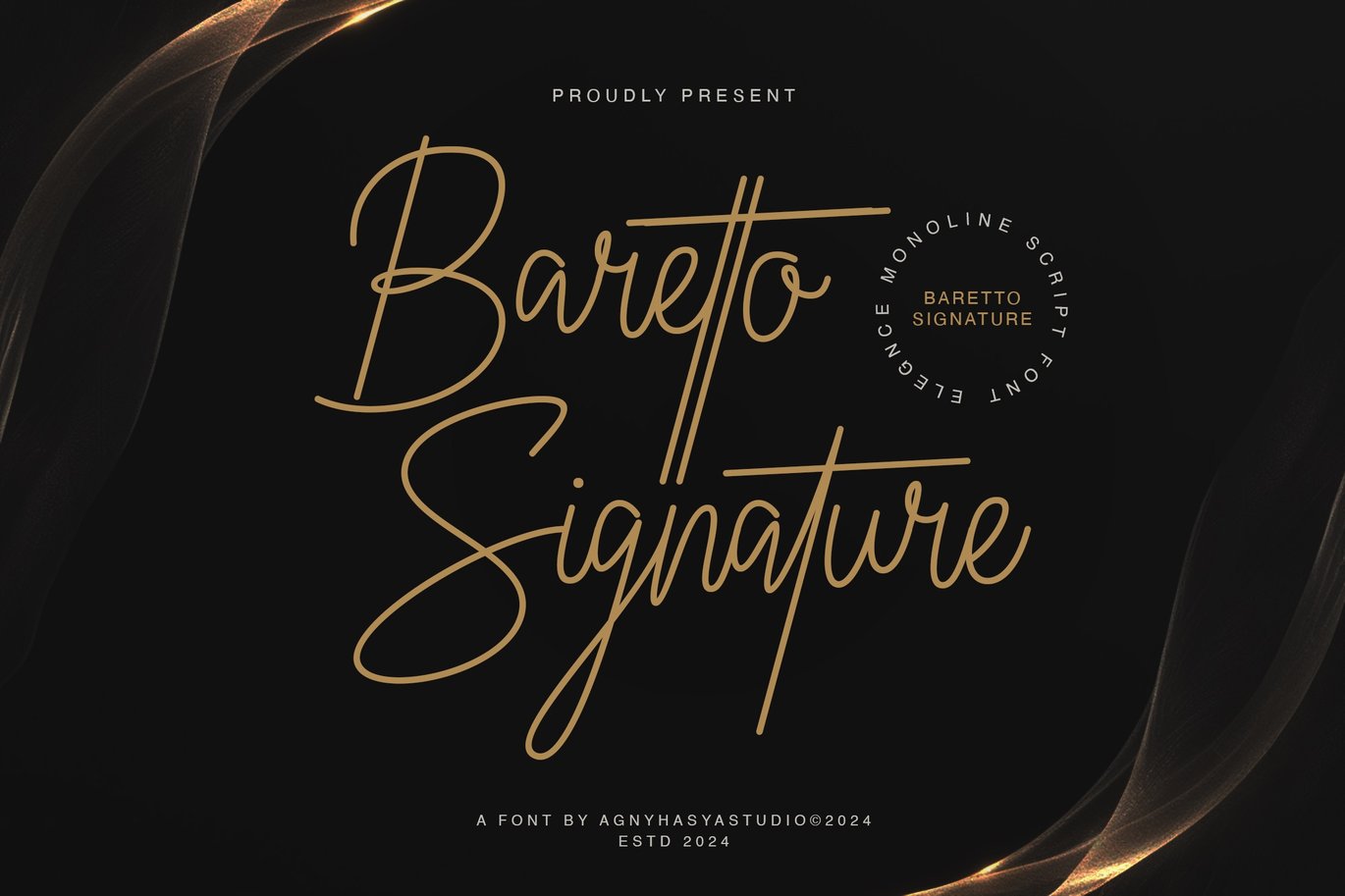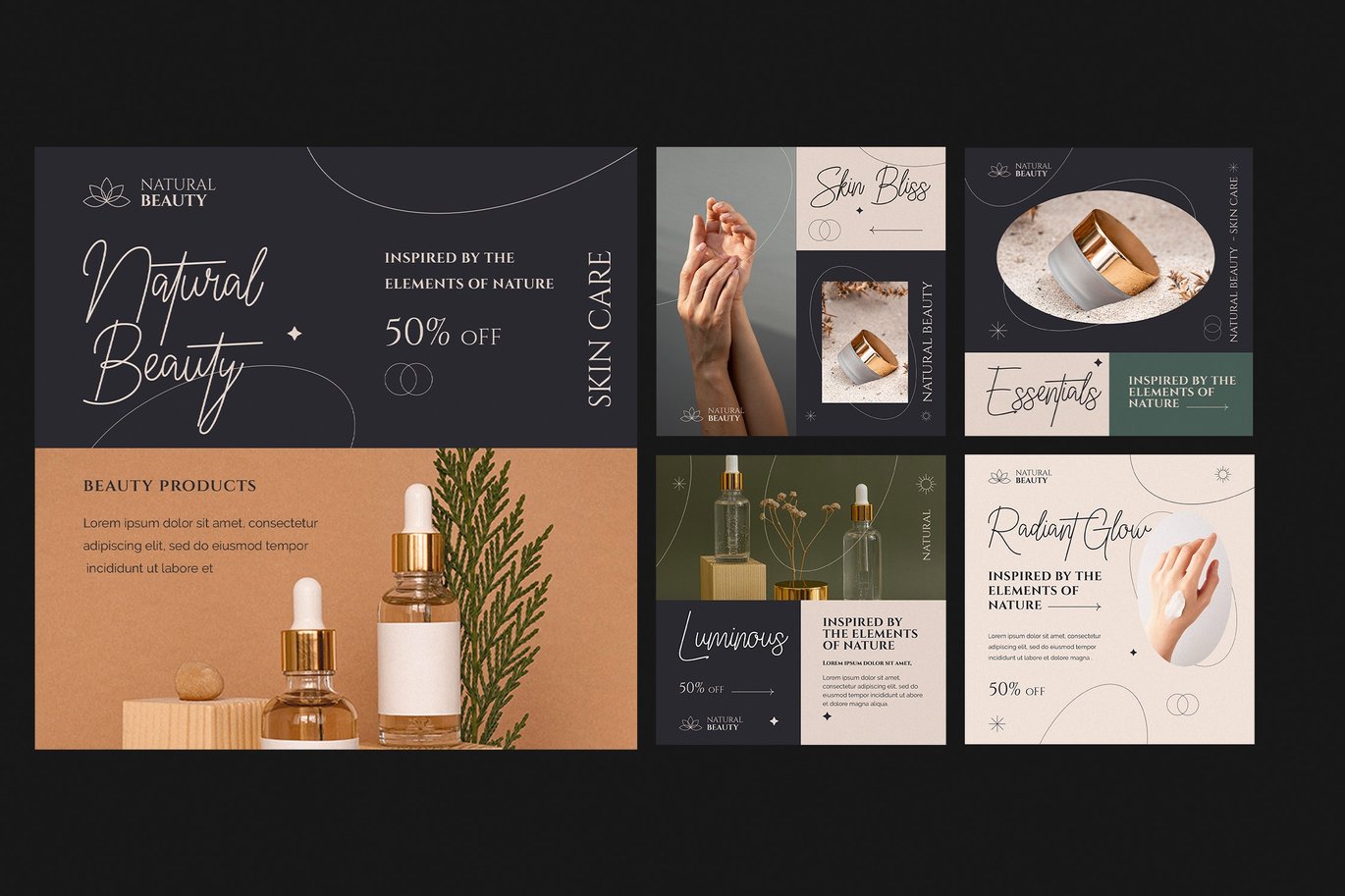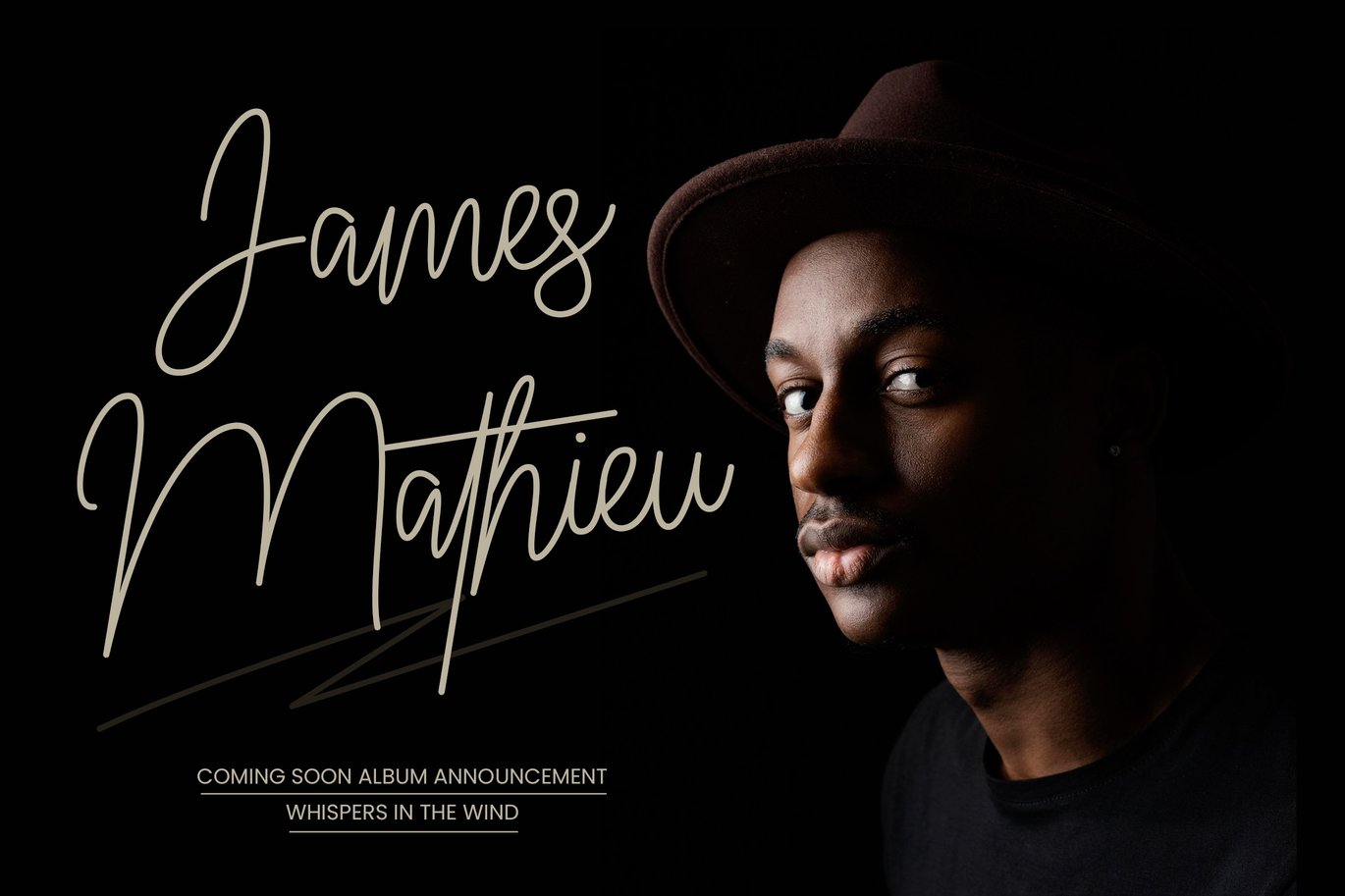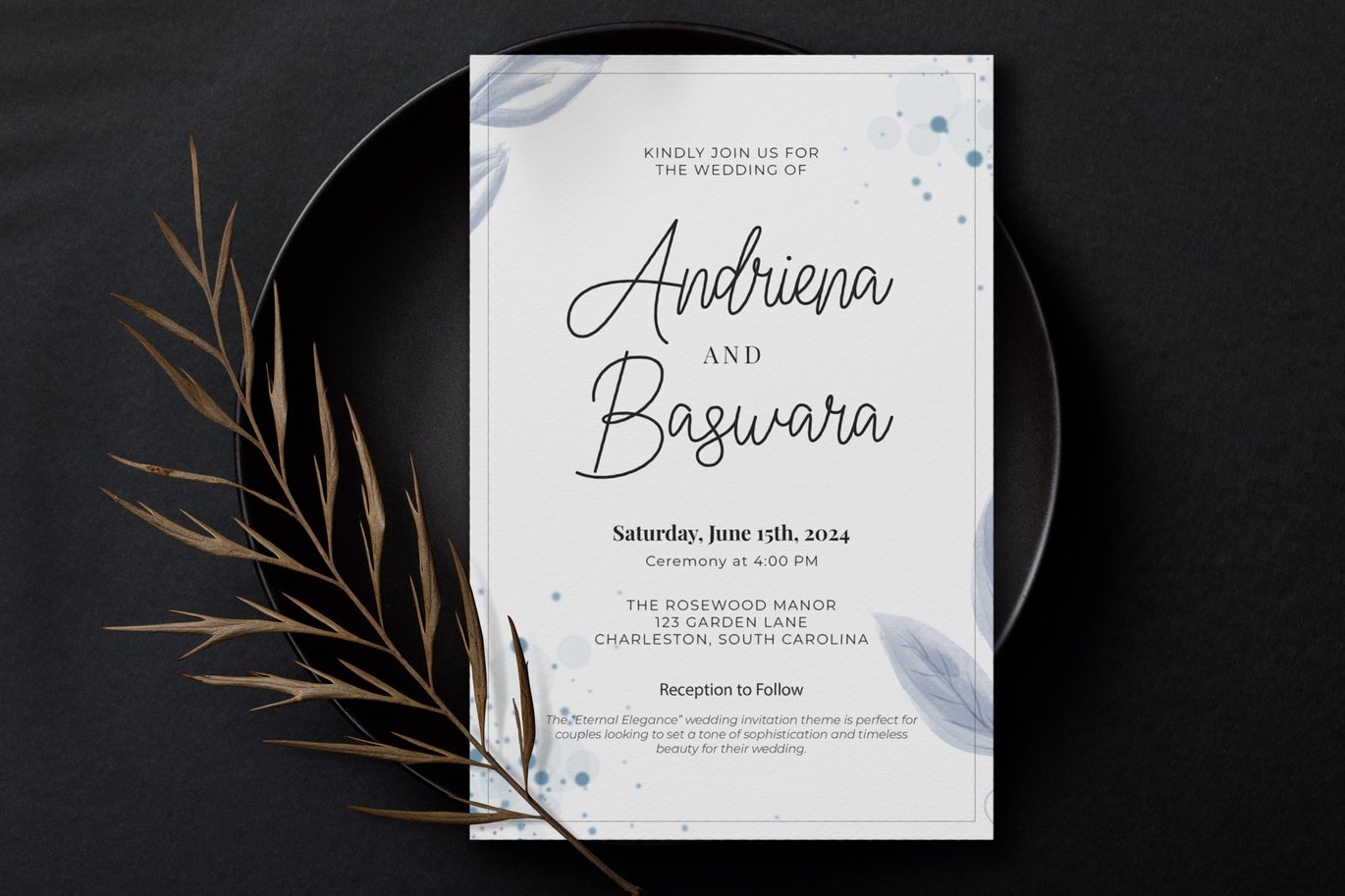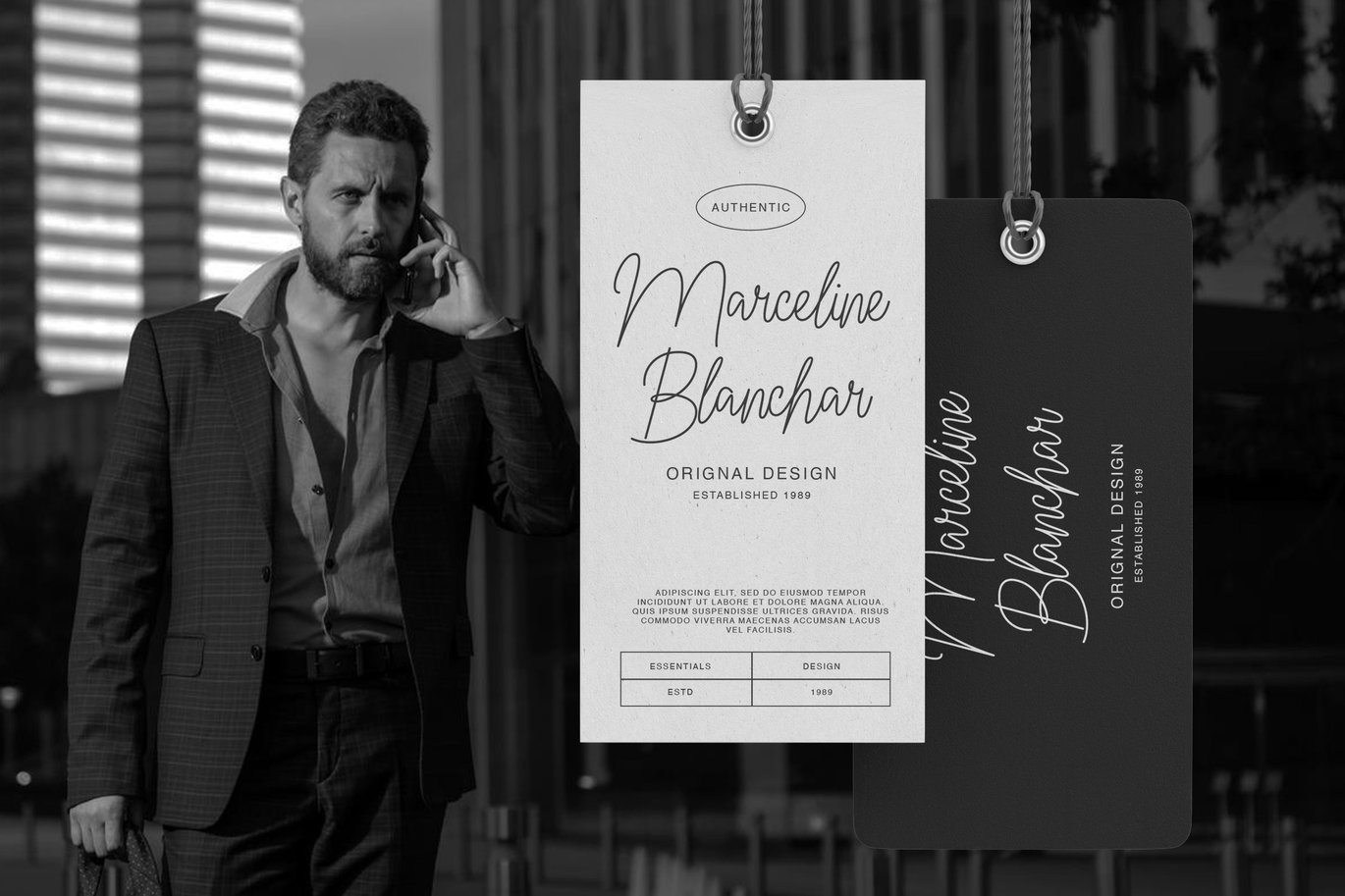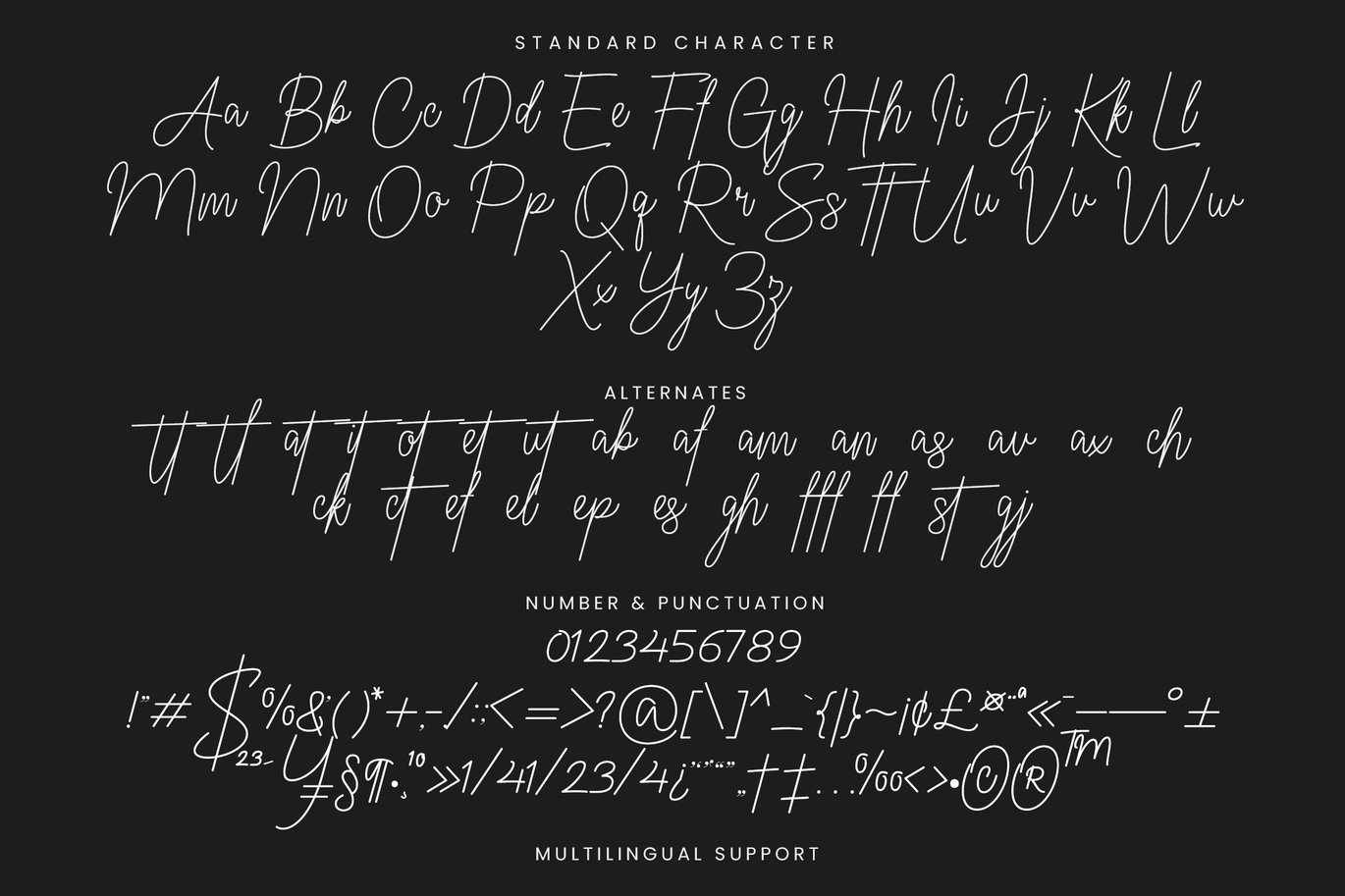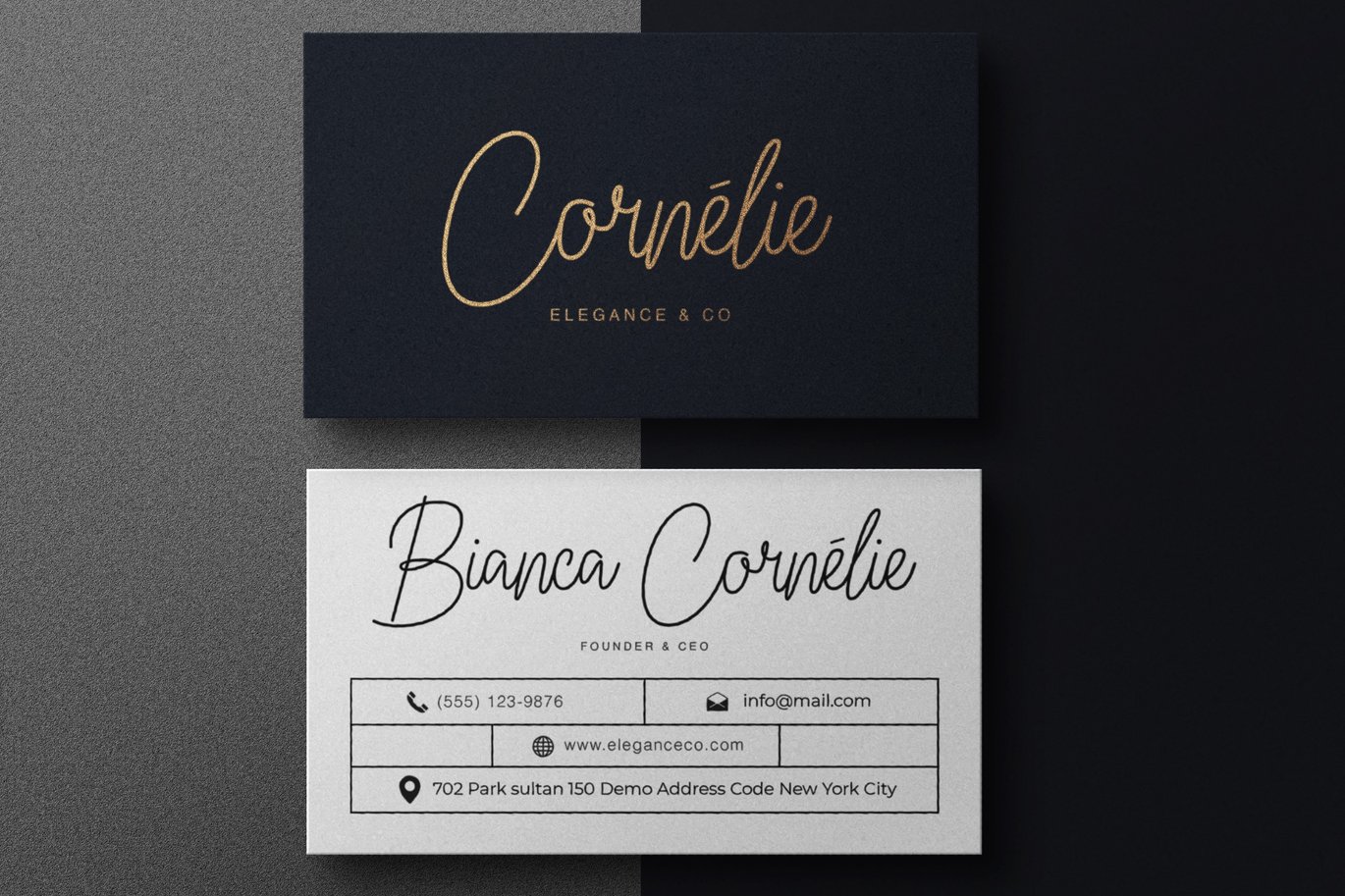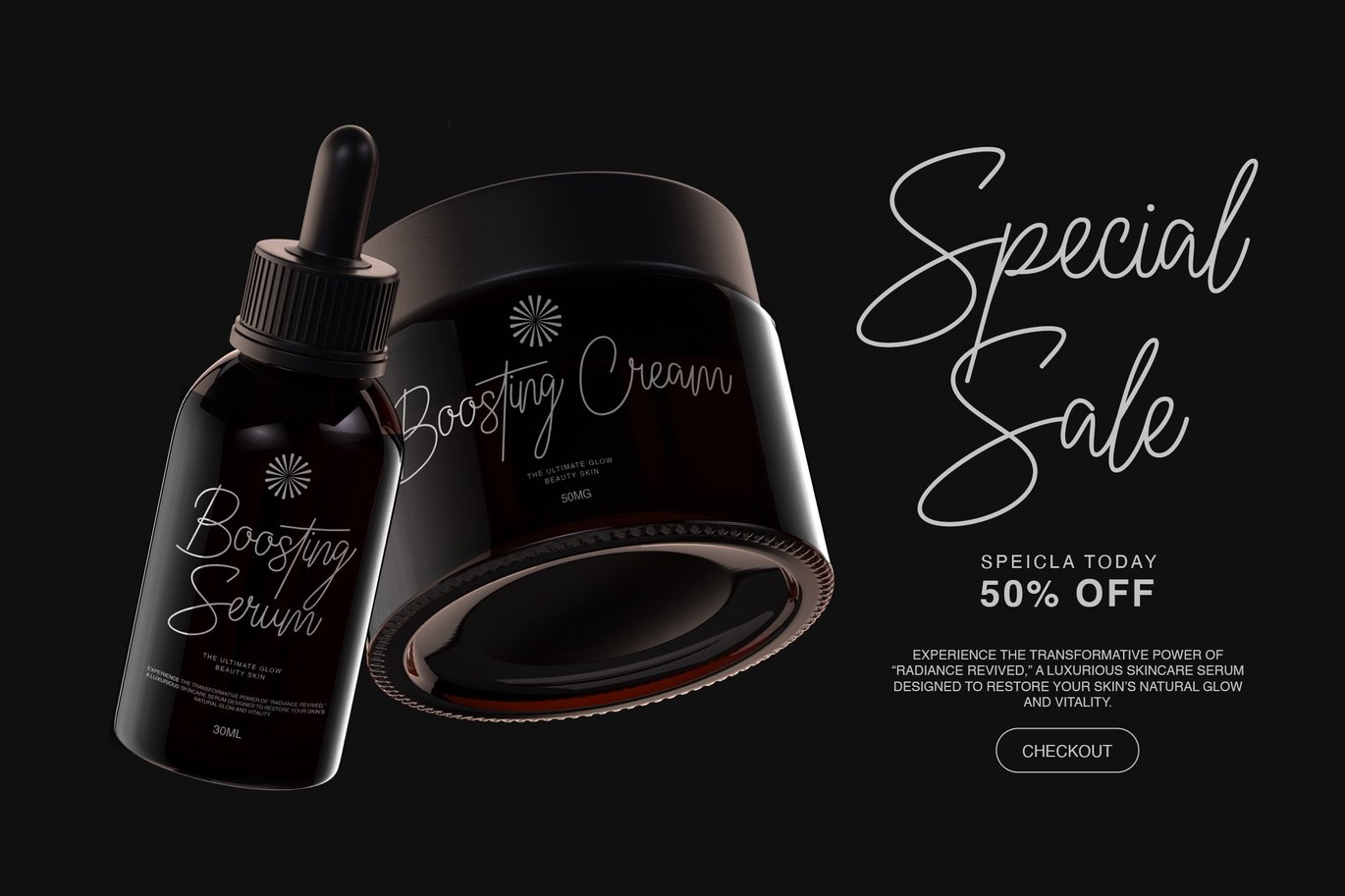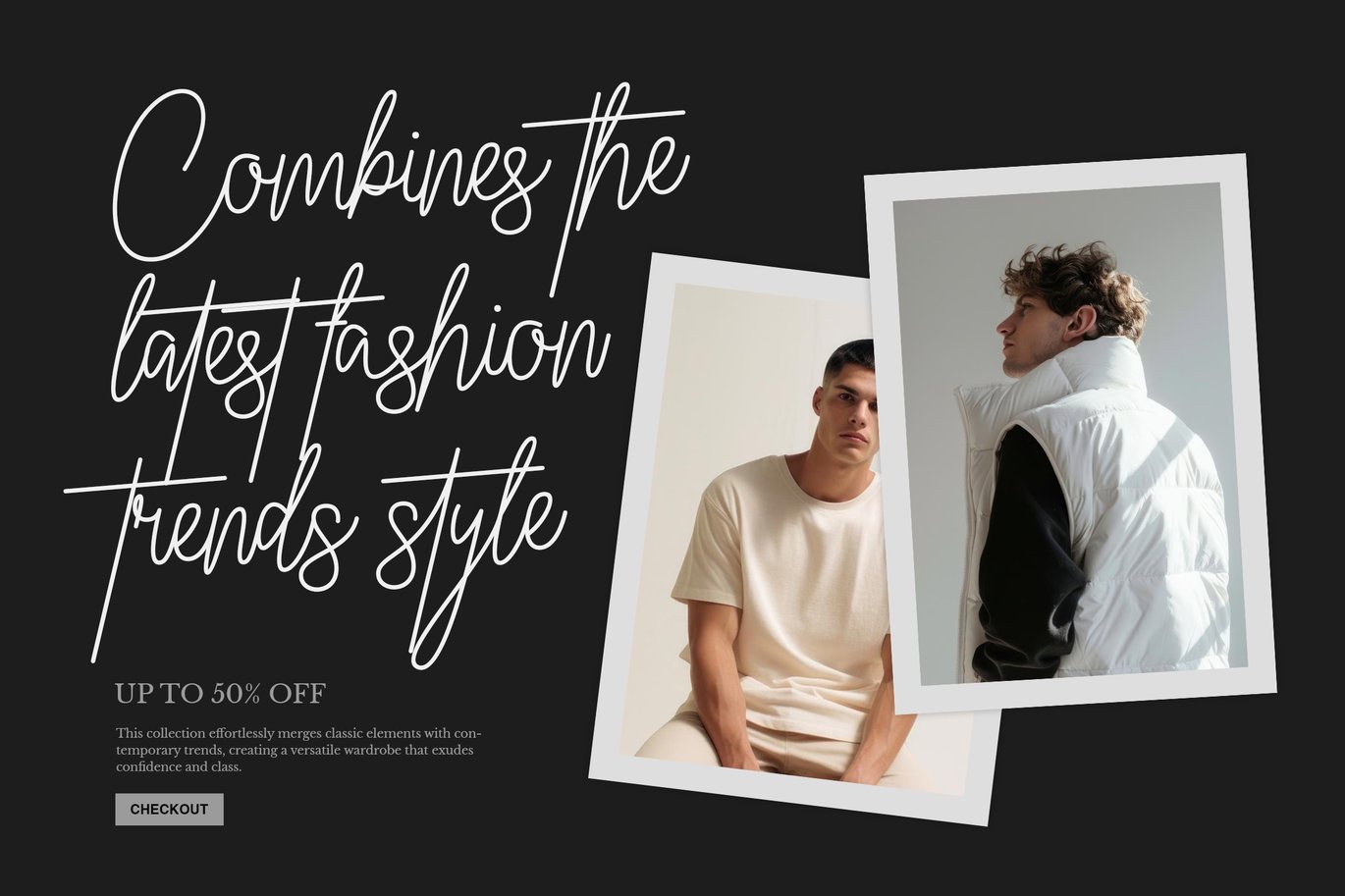
Baretto Signature Font
Introducing Baretto Signature is a monoline-style script font with natural and elegant movement.
Baretto Signature is versatile and can be used for any casual, formal, or business project design needs,
including logos, branding, art quotes, wedding designs, social media posts, advertising, product packaging,
product designs, labels, photography, watermarks, invitations, beauty and fashion designs, stationery,
and any projects that require a handwritten touch.
- Uppercase, Lowercase, Numeral & Punctuation